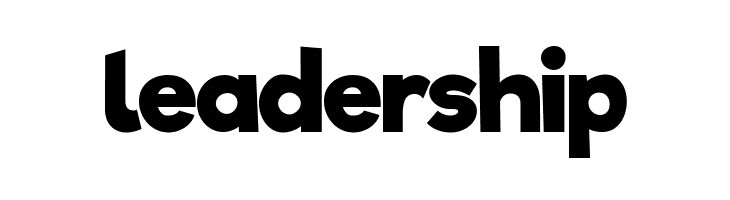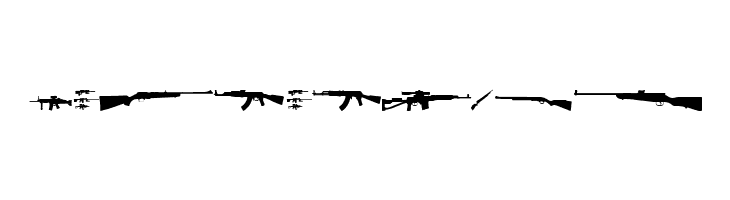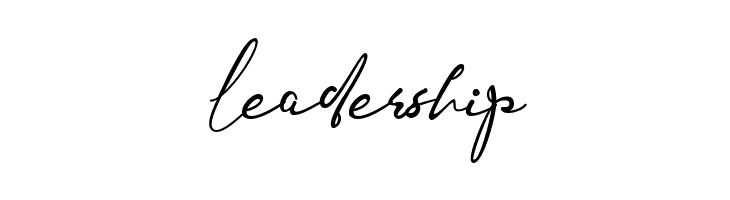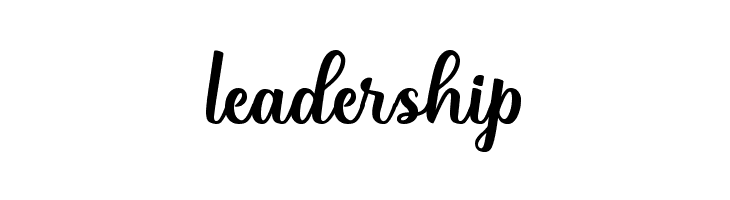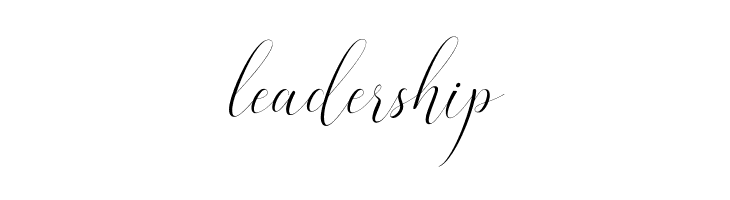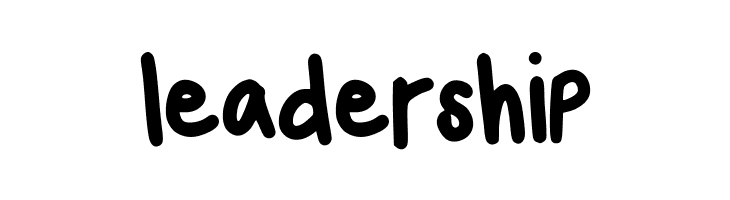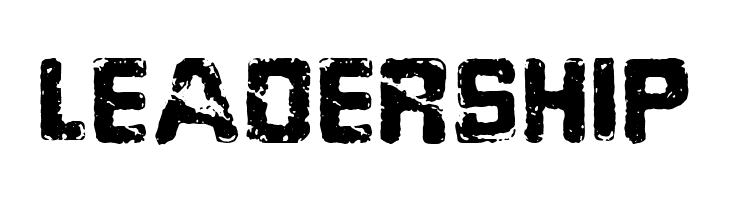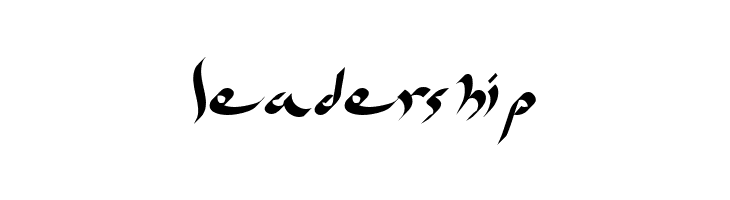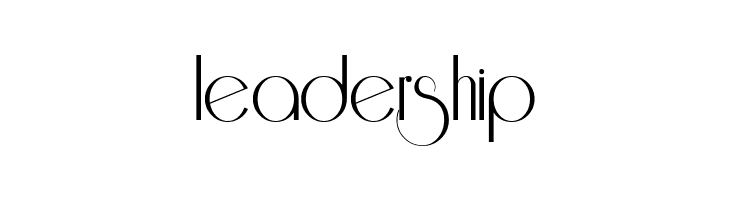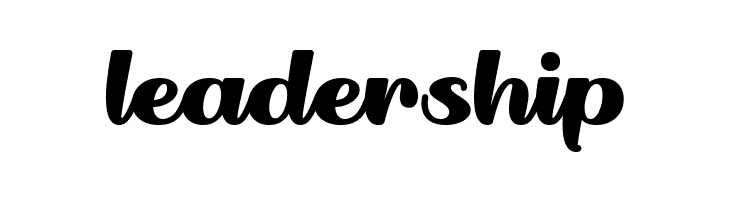
A bold, wide, and expanded italic font with high contrast and strong visual impact.
A bold, wide, and light serif font with a modern aesthetic.
An elegant, expanded italic serif font with a light weight and modern style.
A bold, ultra-expanded serif font with wide letterforms and high contrast.
A bold, ultra-expanded italic font with a modern and dynamic style.
A bold, ultra-expanded font with thick strokes and a commanding presence.
A bold, ultra-expanded italic font with a powerful and dynamic presence.
An ultra-expanded, light serif font with a modern and bold aesthetic.
An ultra-expanded, light, and italicized font with a grand and dynamic style.
An edgy, graffiti-inspired font with sharp, angular lines.
A playful, handwritten font with rounded edges and a casual, friendly appearance.
A dynamic, flowing script font with elegant curves and bold strokes.
An elegant script font with flowing, interconnected letters and luxurious flourishes.
A bold, modern decorative font with geometric and dynamic elements.
A bold, flowing script font with elegant curves and a modern touch.
A lively and energetic script font with fluid, dynamic strokes.
A bold, modern font with rounded geometric characters.
A bold, modern font with rounded edges and a playful aesthetic.
A flowing, cursive font with elegant loops and decorative flourishes.
A bold, distressed font with a rugged, vintage look.
A modern, elegant font with high contrast and decorative elements.
A playful, handwritten font with a dynamic and casual style.
A bold, rounded font with a playful and modern style.
A bold, geometric font with uniform stroke widths and a modern design.
An elegant italic font with medium contrast and sleek, condensed letterforms.
( Fonts by Craft Supply Co - Personal-use only. For commercial use please contact owner. )
A tall, elegant serif font with high contrast and refined style.
( Fonts by www.sweeep.fr - Damien Gosset )
A pixelated, retro-style font with a uniform blocky design.
( Fonts by Zanatlija - Personal-use only. For commercial use please contact owner. )
A decorative font with characters shaped like rifles, offering a bold, thematic style.
A bold, graffiti-inspired font with sharp angles and a dripping effect.
A playful, casual handwritten font with a natural, organic feel.
A dynamic, cursive script font with flowing, artistic strokes.